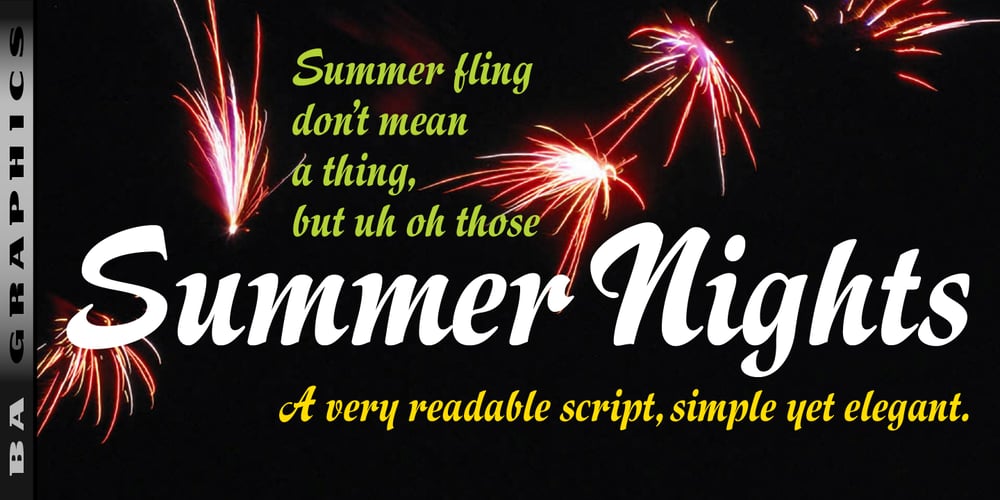
Summer Nights
Summer Nights font
Summer Nights Font Family was designed by Bob Alonso and published by BA Graphics. Summer Nights contains 1 styles and family package options. A very readable script, simple yet elegant. Works great in a multitude of applications.